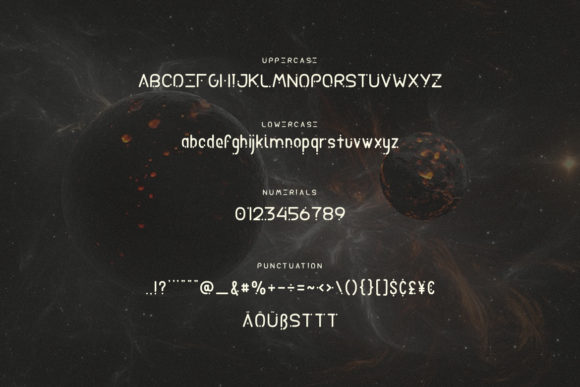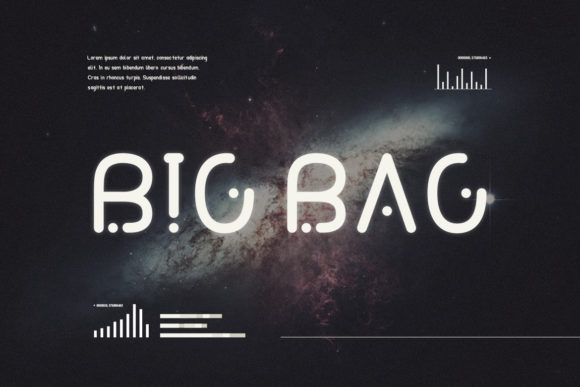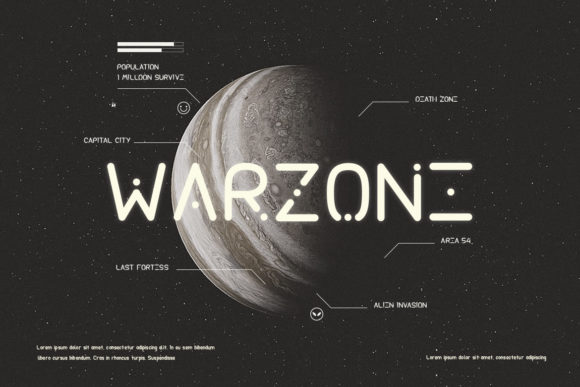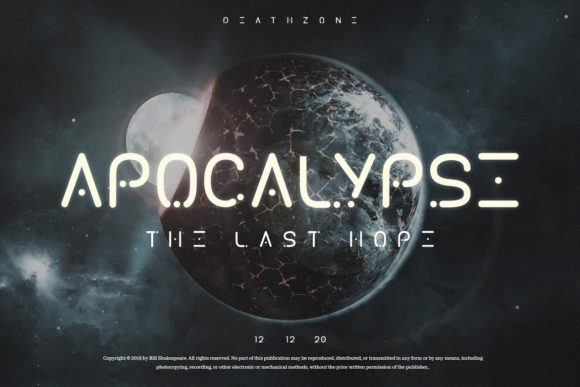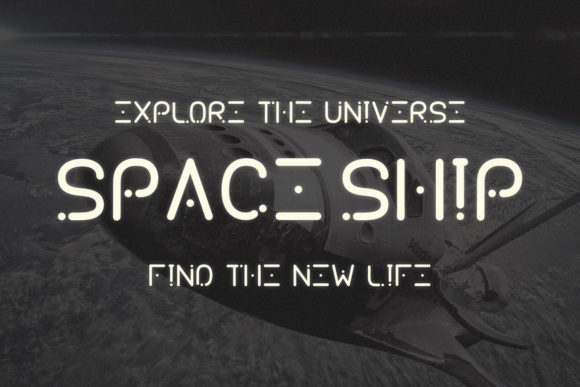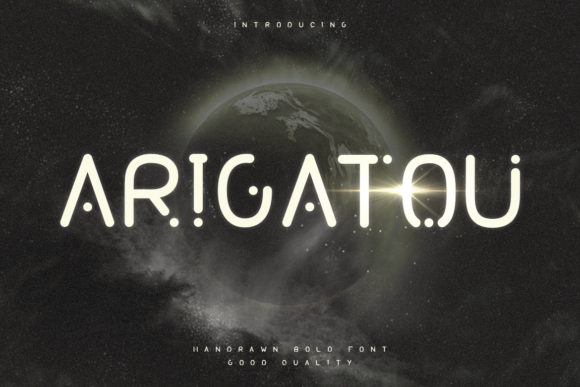
The Power of Alpha Font: Elevate Your Designs with Bold Authenticity
I’ll never forget the time I was working on a project for a client who wanted a bold, eye-catching font to make their brand stand out. I scoured the internet, trying font after font, but nothing seemed quite right. That was until I stumbled upon Alpha Font. This stunning display font has been a game-changer for my designs, and I’m excited to share its awesomeness with you! 😊
An Honest Review of Alpha Font
- ✨ Bold and Authentic: Alpha Font is the perfect combination of bold and authentic. It’s not too flashy, but it definitely makes a statement.
- ✅ Eclectic Brilliance: The font celebrates abstract shapes in all their eclectic brilliance, making it perfect for designers who want to add a touch of uniqueness to their work.
- 💡 Versatile: Alpha Font is versatile and can be used for a wide range of projects, from branding and advertising to packaging and more.
While Alpha Font is an amazing font, there are a few things to keep in mind:
- 🤔 Legibility at Small Sizes: Like many display fonts, Alpha Font can be a bit tricky to read at small sizes. Make sure to use it at a large enough size to ensure legibility.
- ⚠️ Limited Use Cases: While Alpha Font is versatile, it’s not suitable for body text or long-form content. Stick to using it for headlines, titles, and other display text.
- Experiment with the font’s OpenType features, such as glyphs and stylistic alternates, to add more personality to your design.
- Take advantage of the font’s OpenType features, such as glyphs and stylistic alternates, to add more depth to your design.
The Backstory of Alpha Font
Alpha Font was designed by a team of creatives who wanted to create a font that would celebrate abstract shapes in all their eclectic brilliance. Inspired by the world of art and design, they crafted a font that’s both bold and authentic. The result is a stunning display font that’s perfect for designers who want to add a touch of uniqueness to their work.
| Font Name | Alpha Font |
| Author | naulicrea |
Q: What type of projects is Alpha Font best suited for?
A: Alpha Font is perfect for projects that need a bold, eye-catching font, such as branding, advertising, packaging, and more.
Q: Can I use Alpha Font for body text?
A: No, Alpha Font is a display font and is not suitable for body text or long-form content.
Q: Does Alpha Font support OpenType features?
A: Yes, Alpha Font supports OpenType features, including glyphs and stylistic alternates.